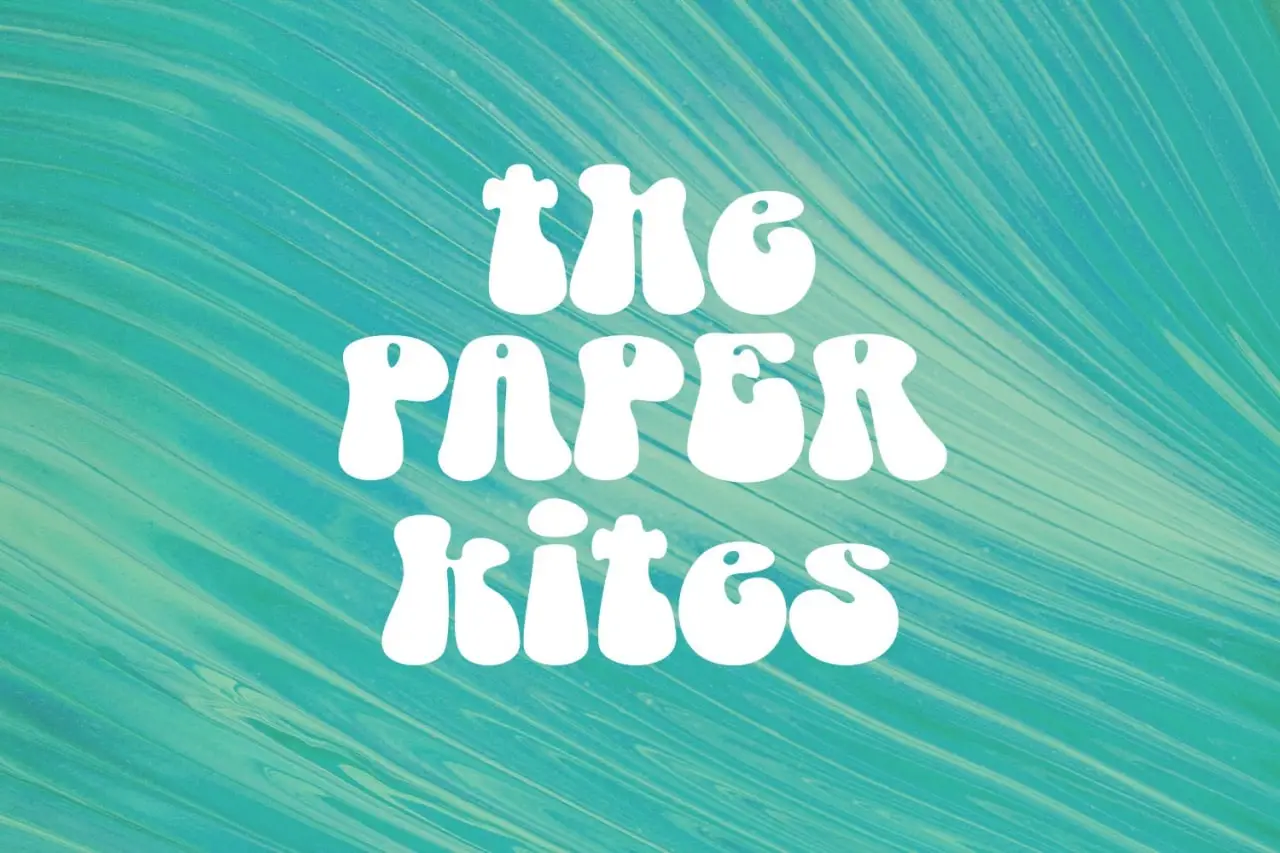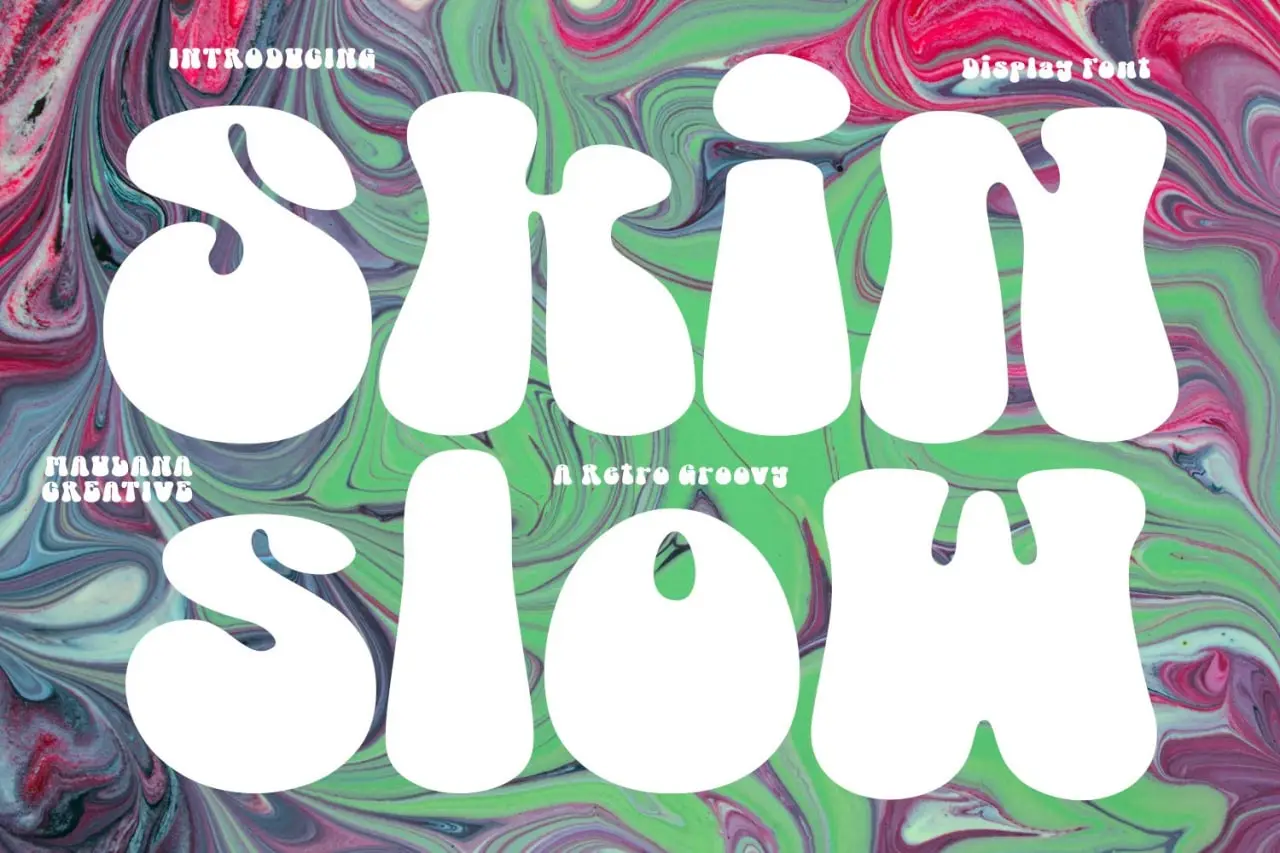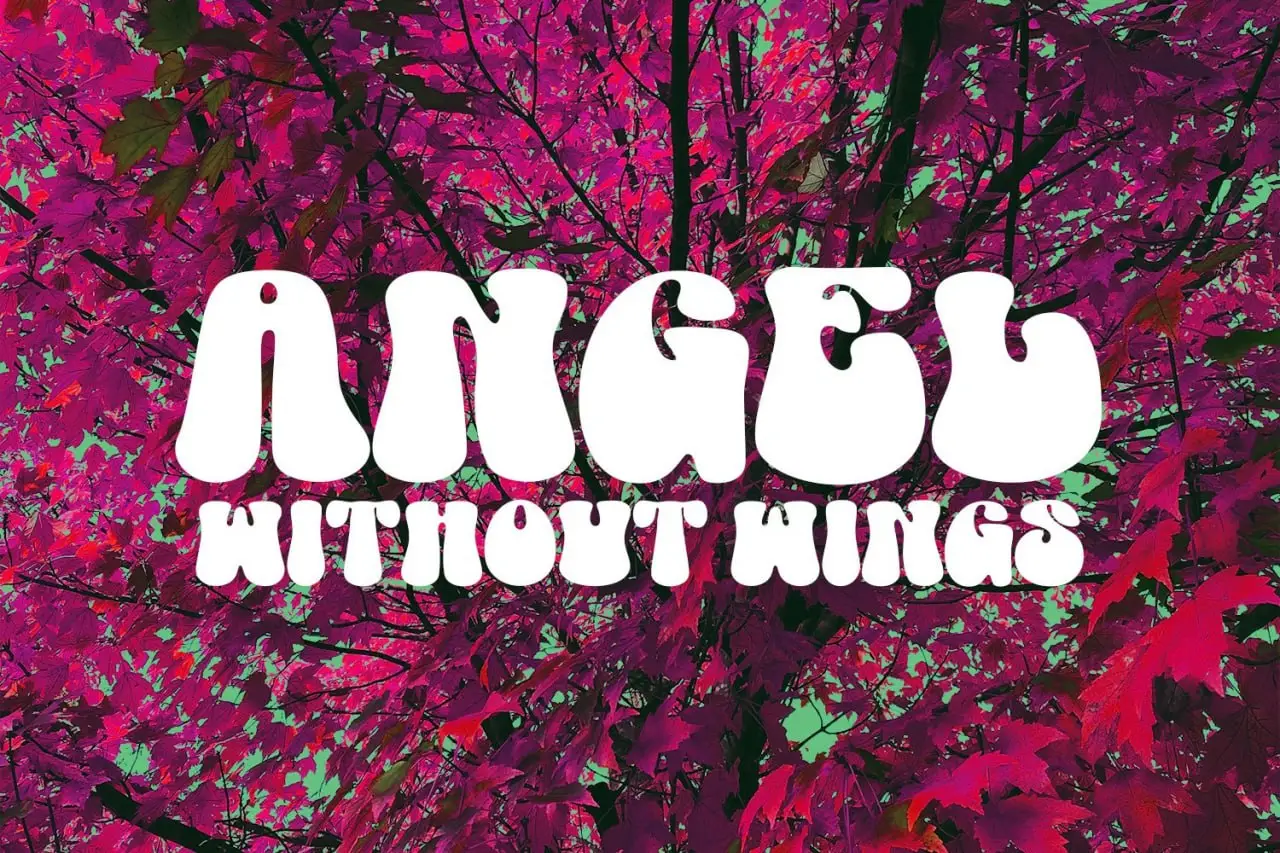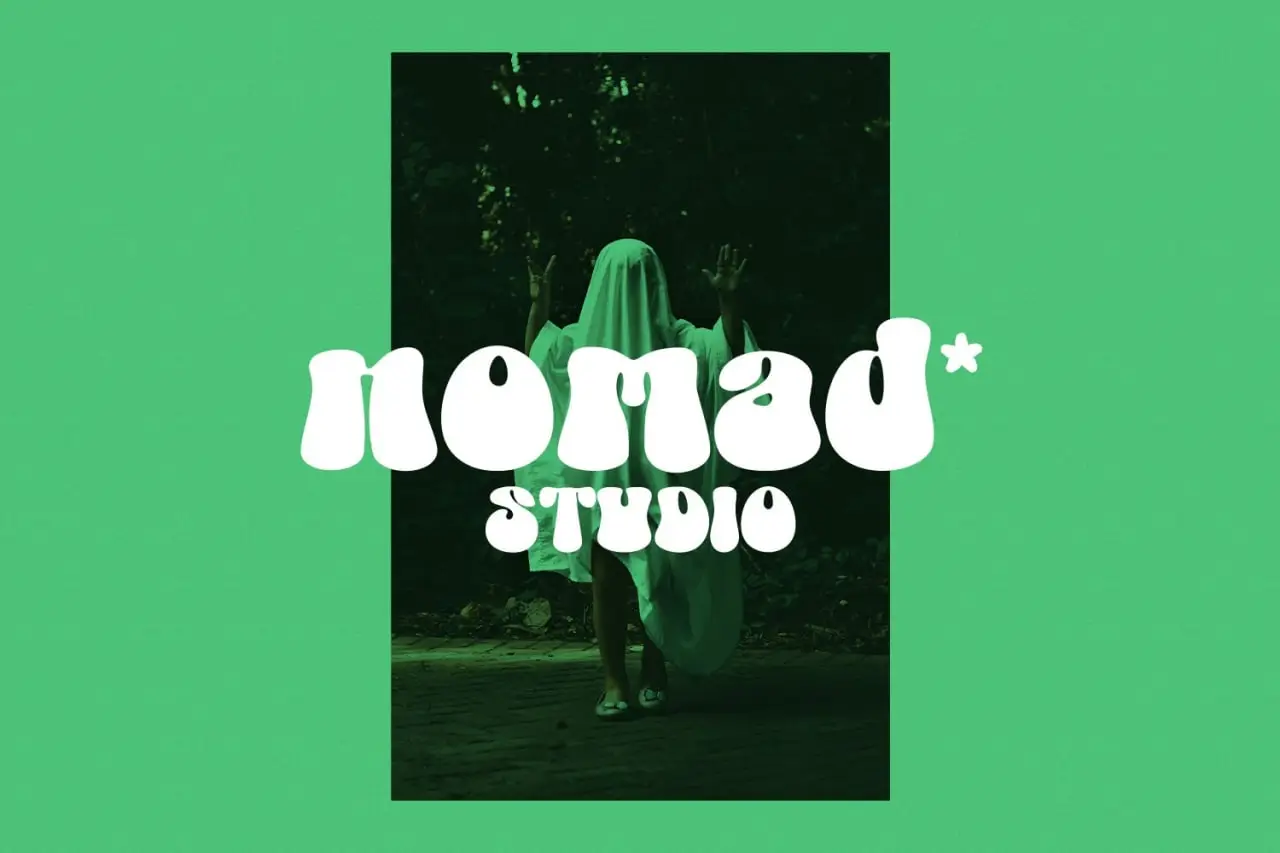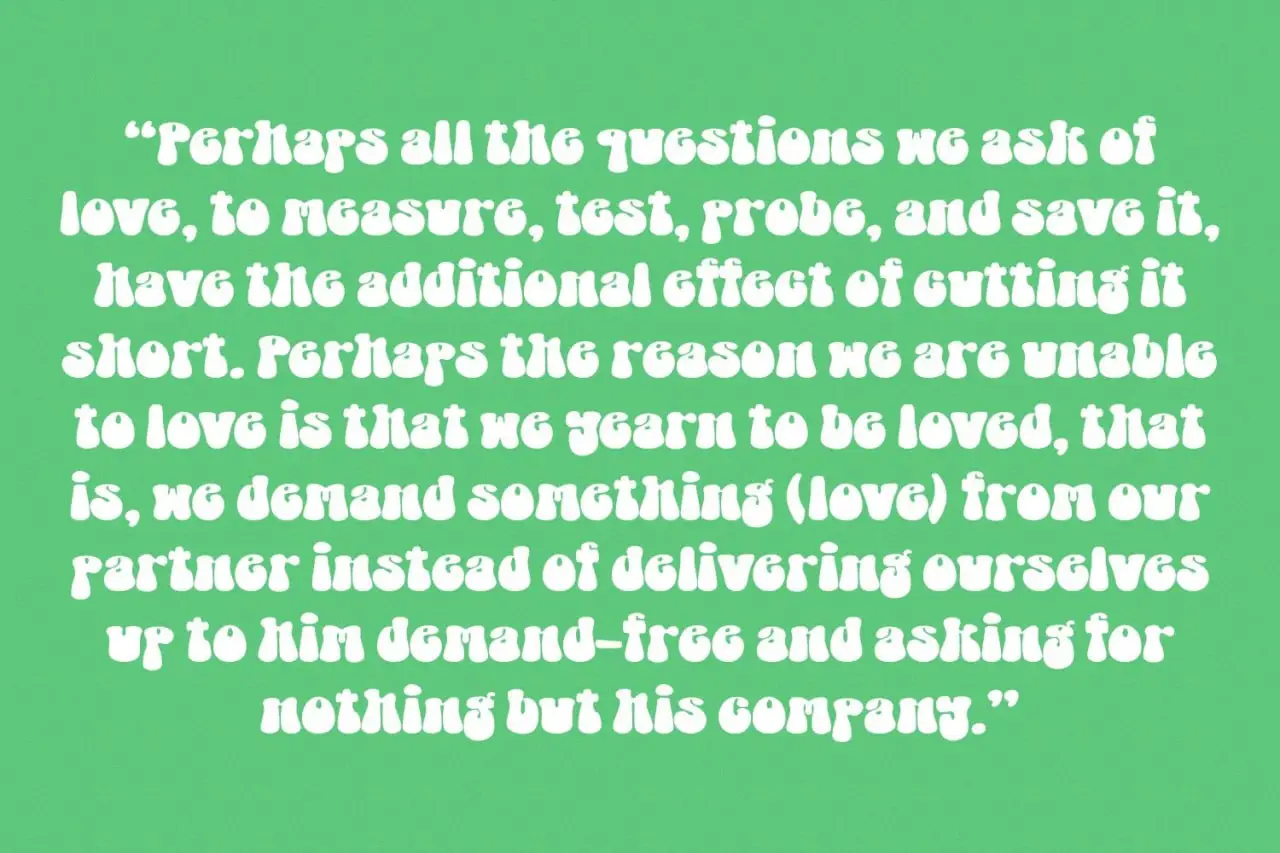
Skin Slow Font By Maulana Creative
Introducing the Skin Slow Font by Maulana Creative, a beautifully crafted typeface that combines elegance with a modern touch. This font features a unique design that is perfect for various applications, from branding and logos to web and print projects.
• Ideal for creating eye-catching logos and branding materials.
• Use in web design for a stylish and readable typography.
• Perfect for print projects like posters, flyers, and business cards.